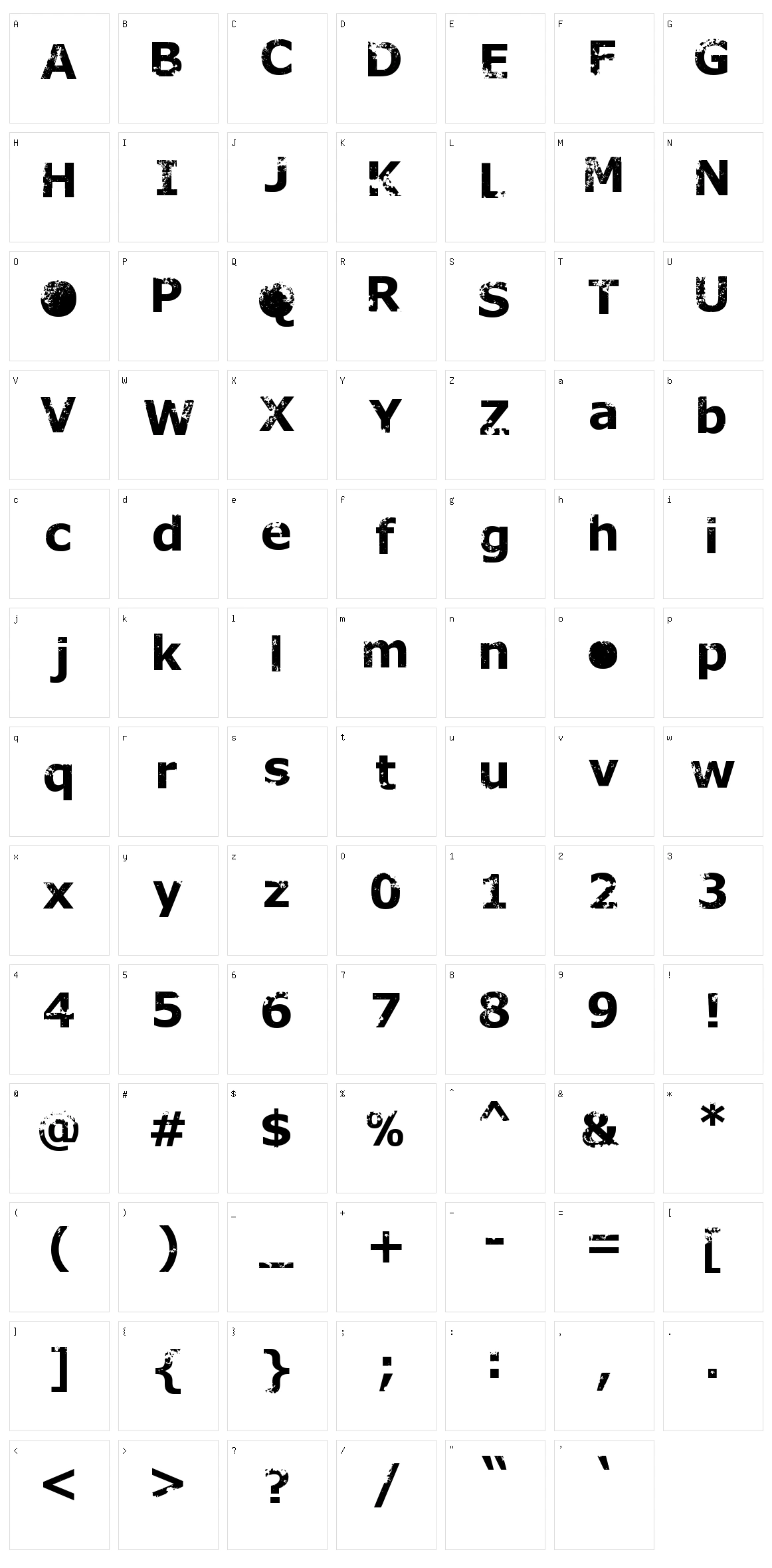
The free font Rusto is carefully designed by Jayde Garrow, showcasing a thoughtful balance of creativity and usability and falls under the Eroded font style. When you download the ZIP file, it contains only 49.15 KB of font files, making it lightweight and quick to download. Please review the license details below to understand permitted usage and distribution rights. If license information is not available, we recommend using this font for personal projects only or contacting the author directly for commercial usage permissions.